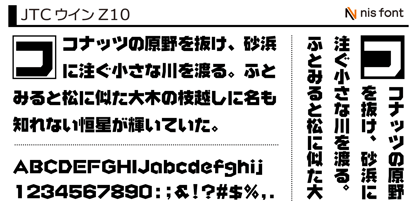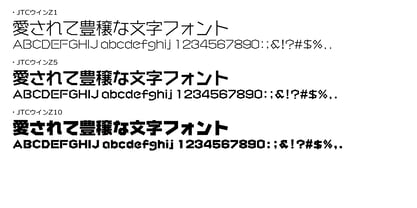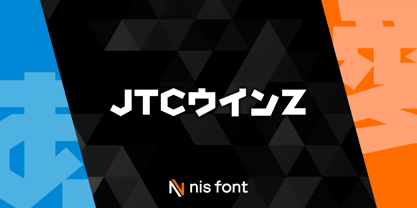
OT-NIS_Z
The OT-NIS_Z Font Family was designed by and published by NIS Fonts. OT-NIS_Z contains 3 styles and family package options. More about this family
This is an exceptionally rare Gothic typeface, designed entirely with straight lines. All of its approximately 7,000 characters from JIS Level-1 and Level-2 are composed exclusively of straight lines, with no curved elements in any character. While its concept and design are entirely unprecedented, it has become widely loved and frequently used by many individuals. One could even say that it is a staple font for designers. Supports the JIS2004 character set.